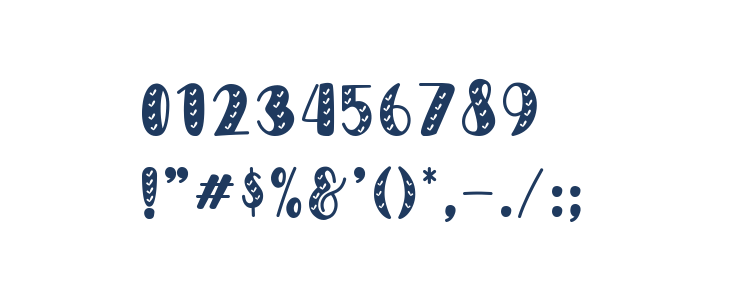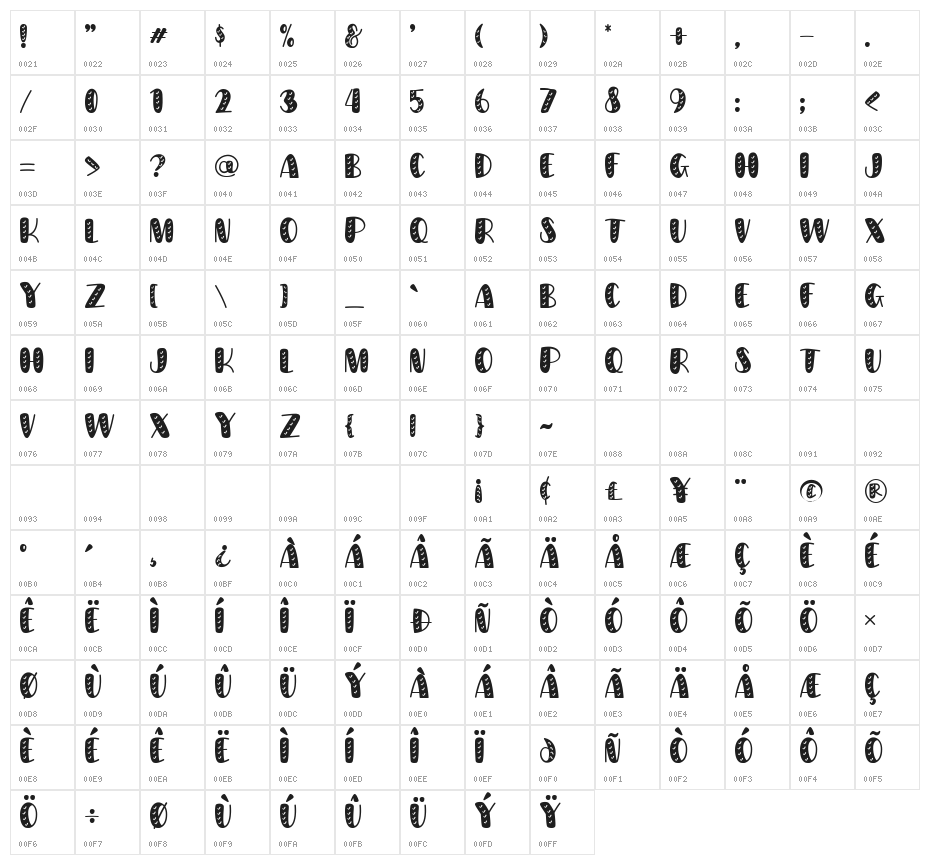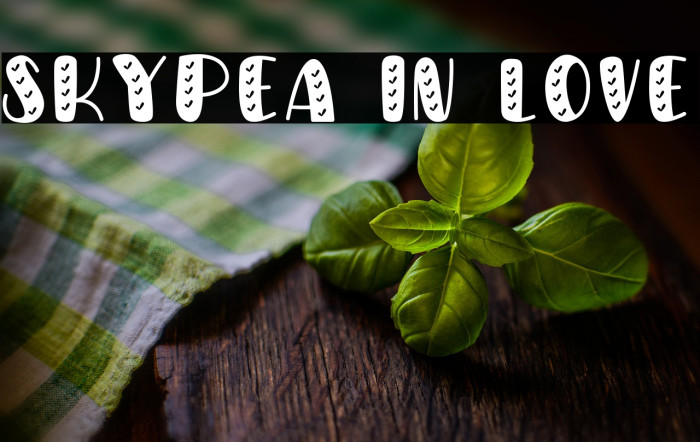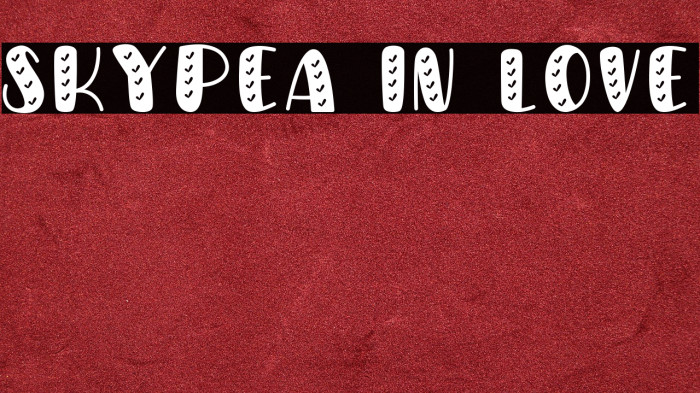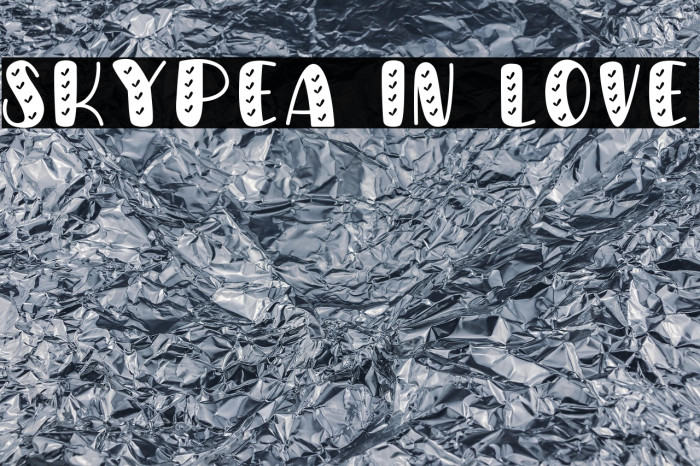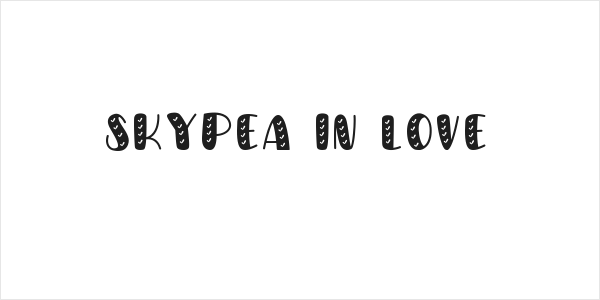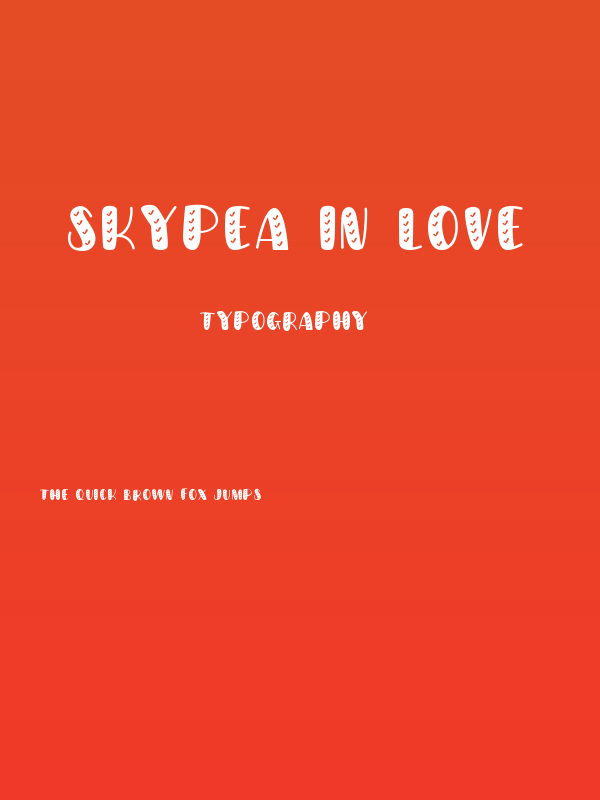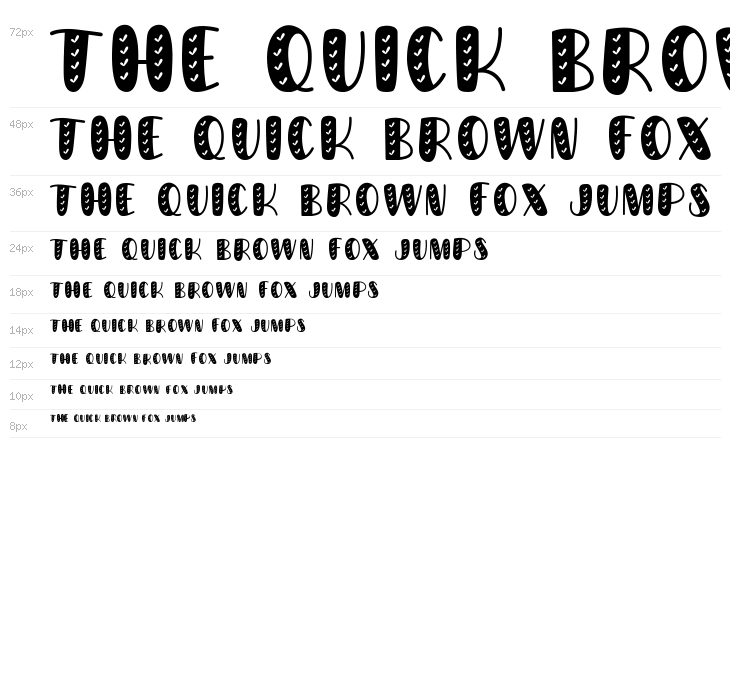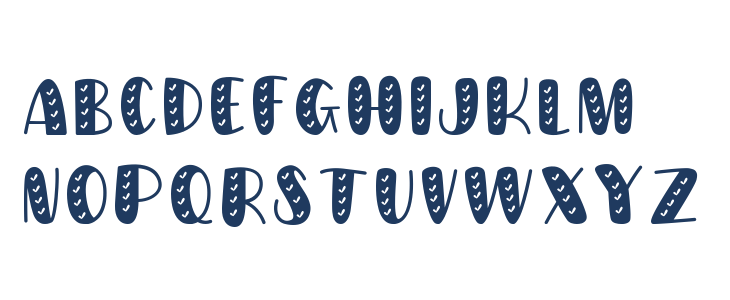
Skypea in Love Font
Skypea in Love Description
This playful and decorative font features a whimsical design with heart-shaped cutouts within each character, adding a unique and charming touch. The letters are bold and rounded, with a consistent thickness that provides a solid and impactful appearance. The uppercase and lowercase letters maintain a cohesive style, while the numbers and special characters follow the same playful theme. The font's overall look is both fun and romantic, making it ideal for projects that require a touch of creativity and affection. Its distinct style ensures that it stands out, making it perfect for eye-catching designs.
| Proposed Projects | Ideal for Valentine's Day cards, wedding invitations, playful branding, and children's book covers. |